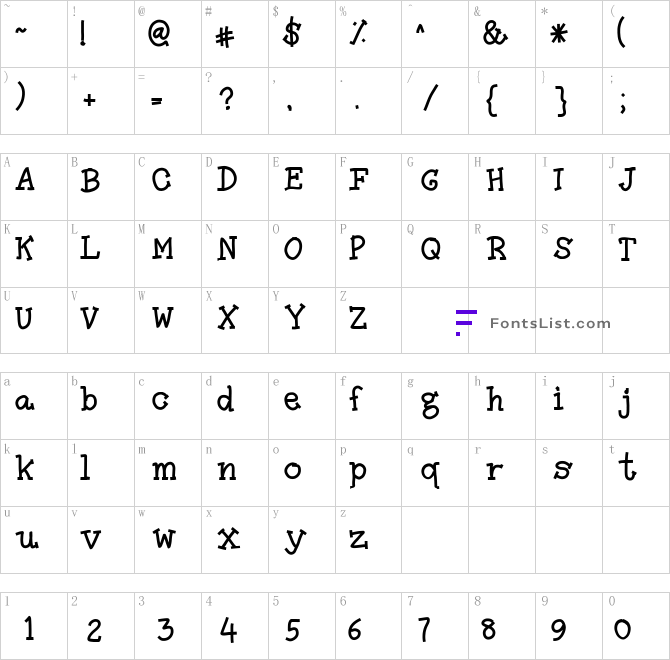
- Font Name:Amutham
Amutham.ttf is a very beautiful artistic font, Amutham.ttf is widely used in the design and printing of various books and pictures,Amutham.ttf has a strong visual impact,Amutham.ttf is a commonly used font in newspapers, magazines and books, and is used in posters, e-commerce Poster design, store design, logo design, font design and other fields.Amutham.